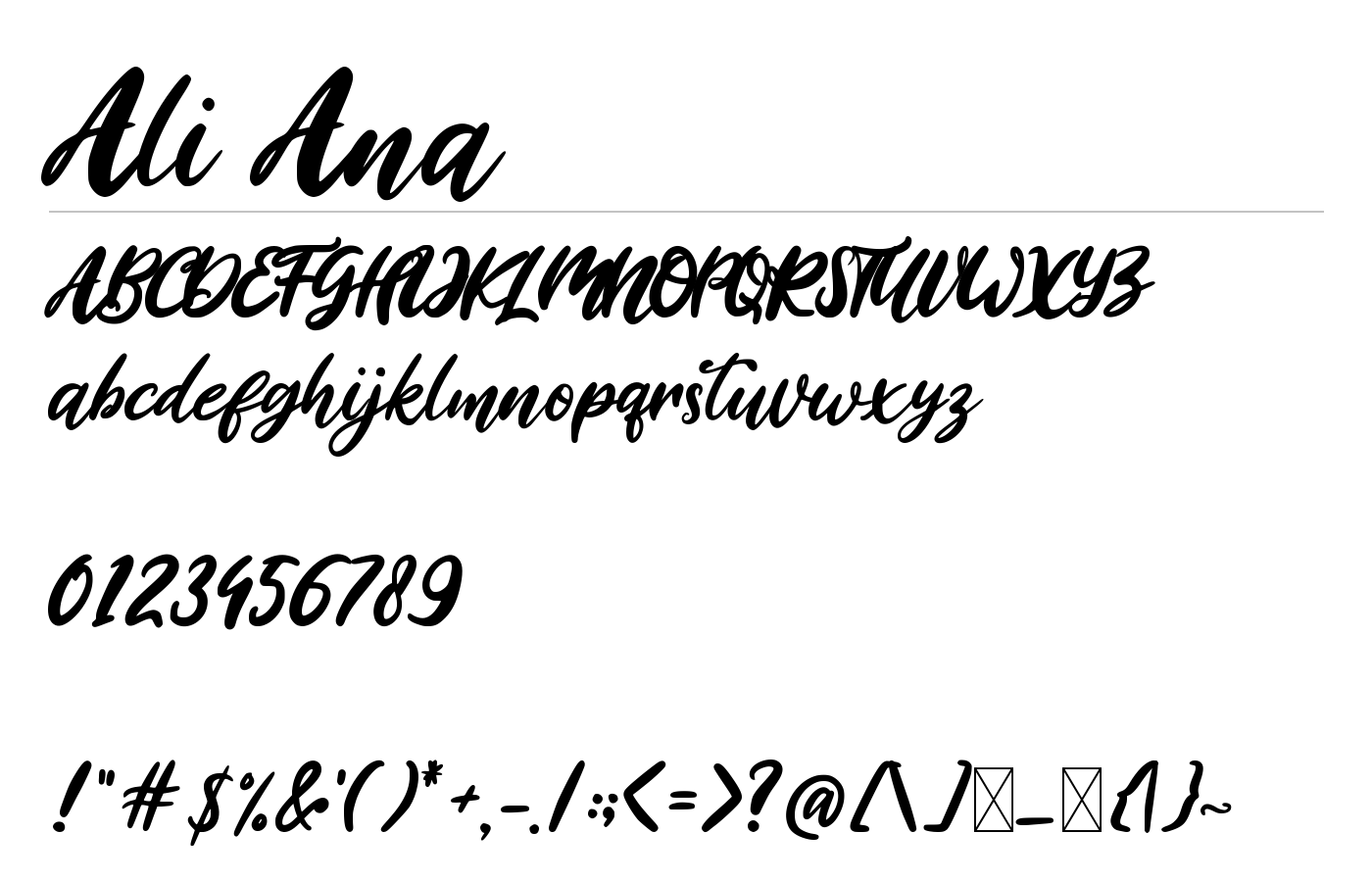
Ali Ana is a lively script font with a bold, handwritten style that exudes energy and warmth. Its smooth, flowing letterforms and moderate contrast create an inviting, personal feel, making it perfect for creative branding, casual invitations, and eye-catching headlines where a friendly yet confident touch is desired.
Ali Ana Font
About Ali Ana Font
| Designer | Ikrar Bey Khubaib |